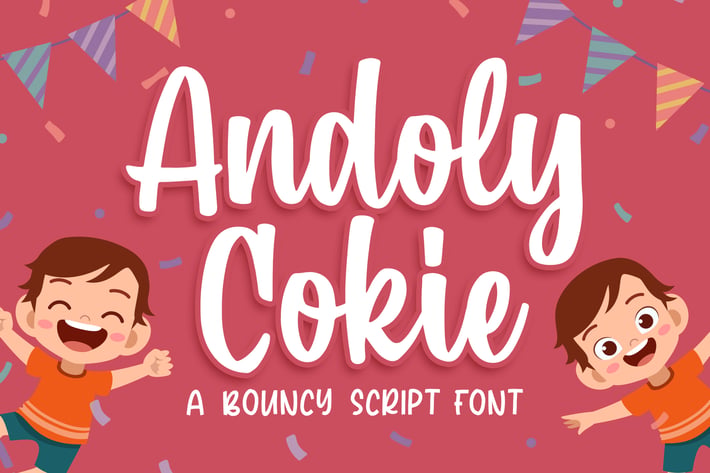
Andoly Cokie - Bouncy Script Font
Introducing of our new product the name is Andoly Cokie a Bouncy Script Font. Andoly Cokie inspired by brush sign calligraphy this font is a fun theme very good for, book cover, poster, t-shirt, quote, logotype, craft and etc
MULTILINGUAL ACCENT :
ØÆøæ¢ÐŒœÁĂÂÀÄĄÅÃǼĆČÇĈĊĎÉĔĚÊËĖÈĘĞĜĢĠĤÍĬÎÏİÌĮĨĴĶĹĽĻĿŃŇŅÑÓŎÔÖÒŐǾÕŔŘŖŚŠŞŜȘŤŢÚŬÛÜÙŰŲŮŨẂŴẄẀÝŶŸỲŹŽŻáăâäàąåãǽćčçĉċďéĕěêëėèęğĝģġĥíîïìįĩĵķĺľļŀńʼnňņñóŏôöòőǿõŕřŗśšşŝșťţŭûüűùųůũẃŵẅẁýŷÿỳźžż